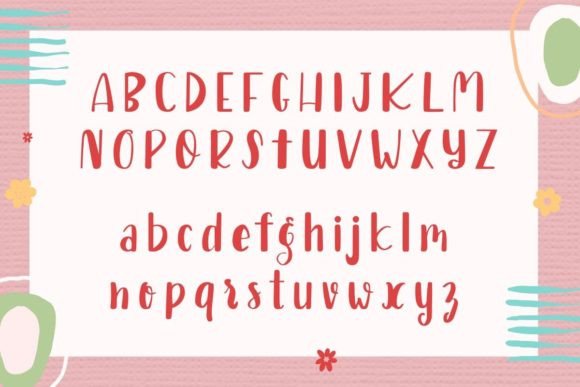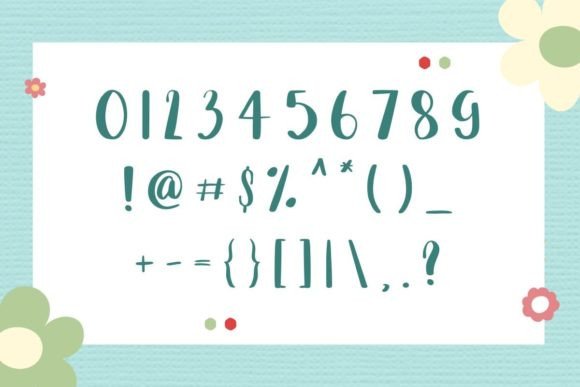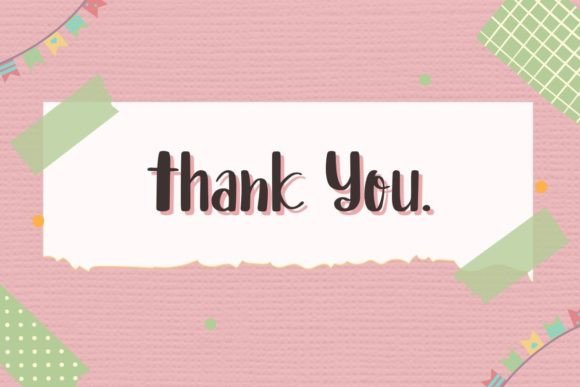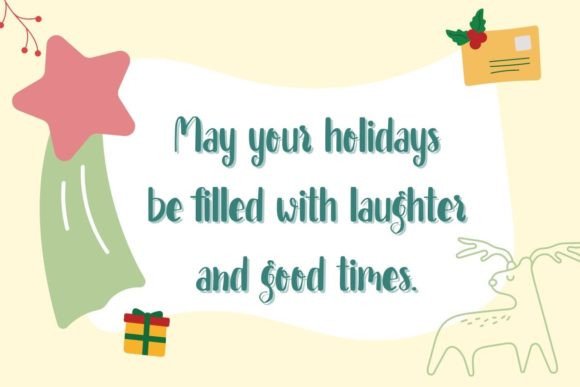
Gift Box Font
Gift Box Font: Cute and Friendly Handwriting for Playful Designs
Gift Box is a charming handwritten font that exudes a cute and friendly vibe. Its casual yet playful style makes it perfect for a wide range of creative projects.
Key Features of Gift Box Font
• Cute Style: Gift Box brings a sweet and endearing feel to designs.
• Friendly Appearance: Creates an approachable and welcoming atmosphere in typography.
• Versatile Use: Suitable for many projects, from greeting cards to packaging designs.
Gift Packaging and Labels
Gift Box’s cute style is ideal for creating charming gift tags, labels, and packaging designs.
Greeting Cards and Invitations
Use Gift Box to design heartwarming cards and invitations that convey a personal touch.
Children’s Designs
The font’s playful nature makes it perfect for children’s book covers, educational materials, and kid-friendly designs.
Why Choose Gift Box Font?
Gift Box offers more than just cute letters. Here’s why it stands out:
• Enhances designs with a sense of warmth and friendliness
• Creates an inviting and approachable atmosphere in typography
• Adapts well to various casual and playful design themes
By using Gift Box, you open up new design possibilities. Its friendly style works well in many contexts, from social media graphics to poster designs. The font’s ability to convey warmth can inspire creative ideas and help you approach projects from a fresh, approachable perspective.
Gift Box in Modern Design Trends
This font aligns perfectly with design trends that favor authenticity and personal touch. Its handwritten style adds a unique quality that resonates with audiences seeking genuine connections, making it particularly effective for brands targeting a friendly, approachable image.
If you’re looking for a font that’s both cute and versatile, Gift Box is an excellent choice. It’s perfect for adding a touch of warmth to your work, especially for projects that need a friendly, approachable feel.
Explore how Gift Box can transform your designs. From branding projects to personal creations, this font brings a delightful and engaging quality to your work.